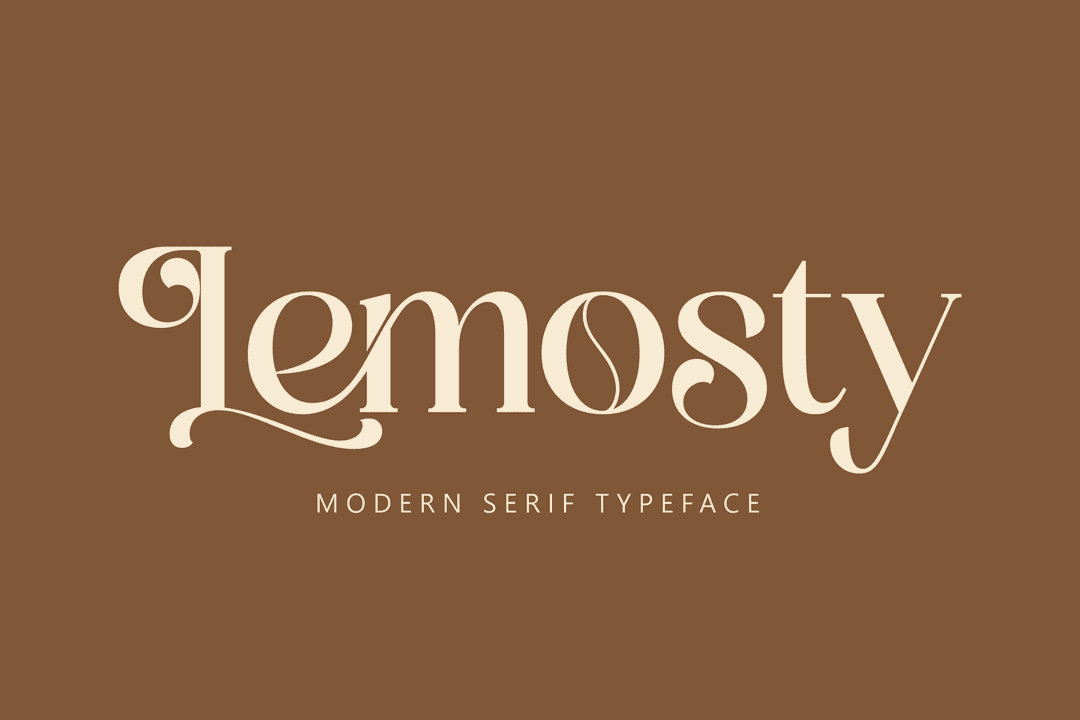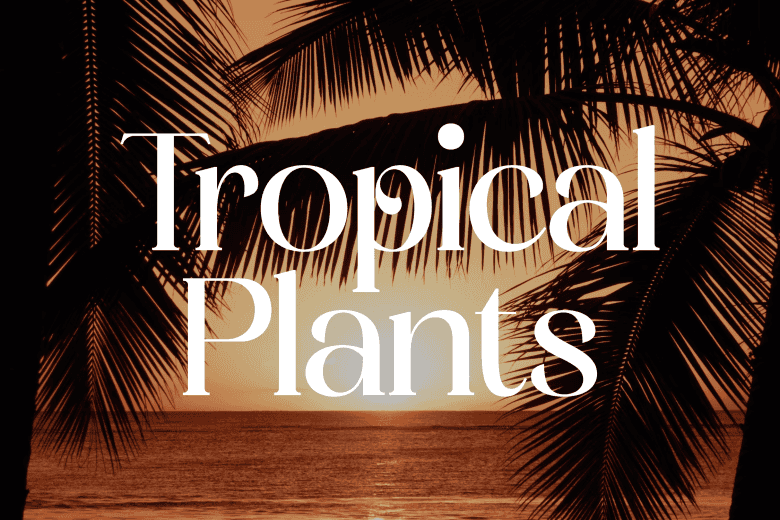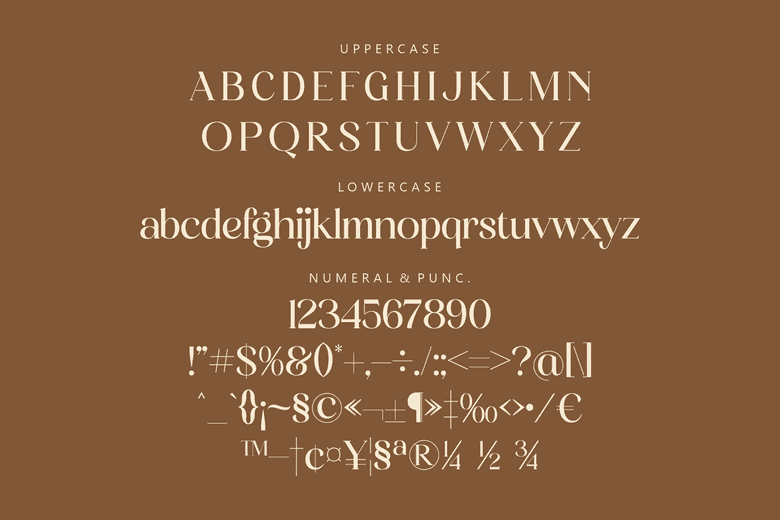
Lemosty is an elegant serif font designed in contemporary style with a distinctive appearance and distinguished features, ideal for use as logos, book or film titles, fashion magazines, clothing lines and lettering as well as quotes among many other uses.